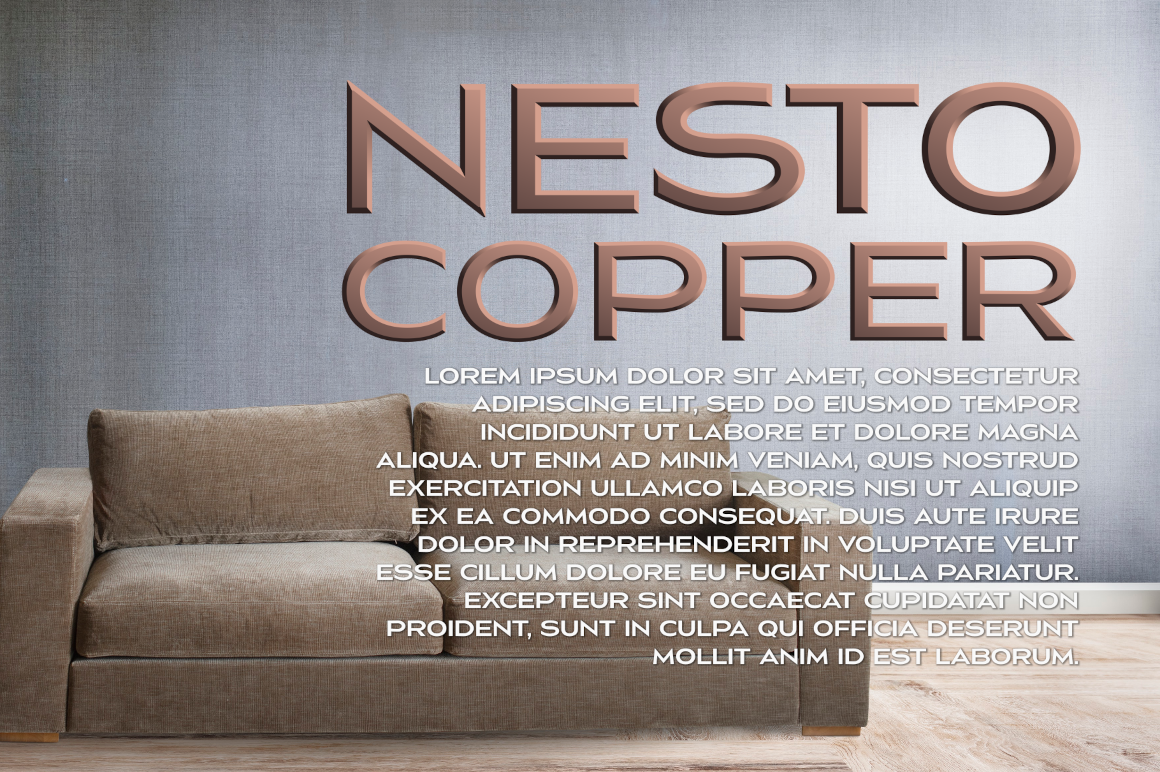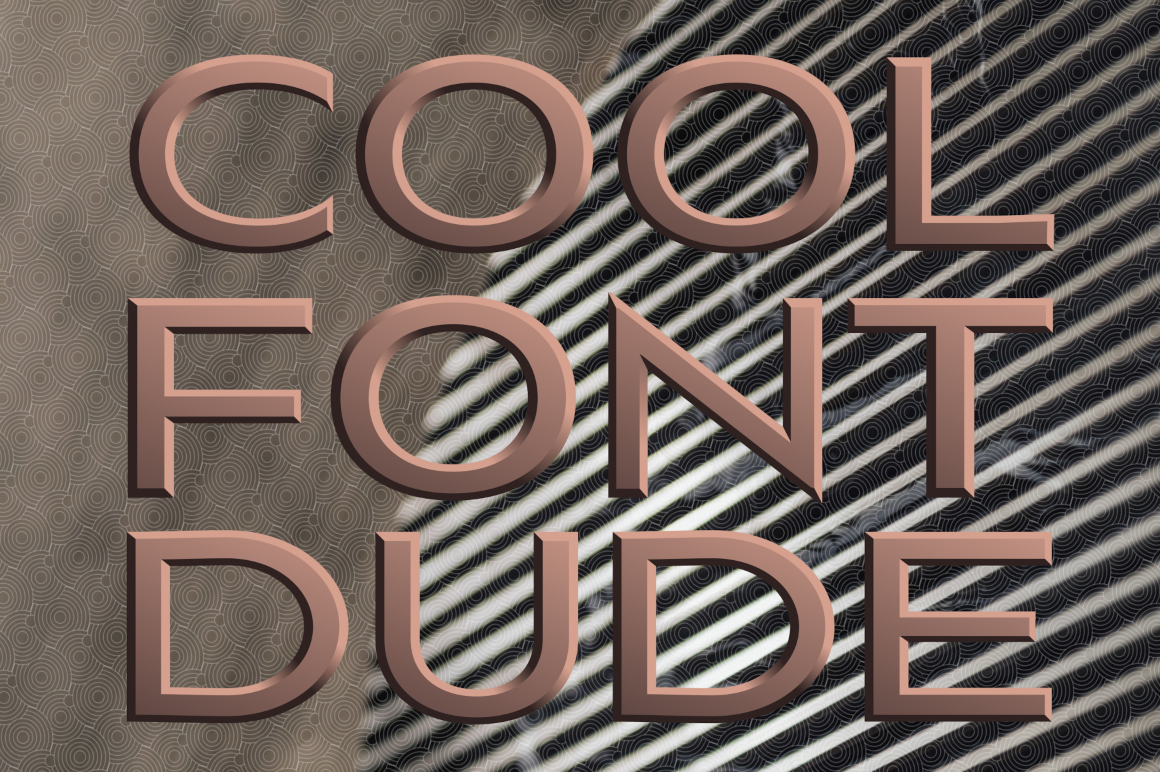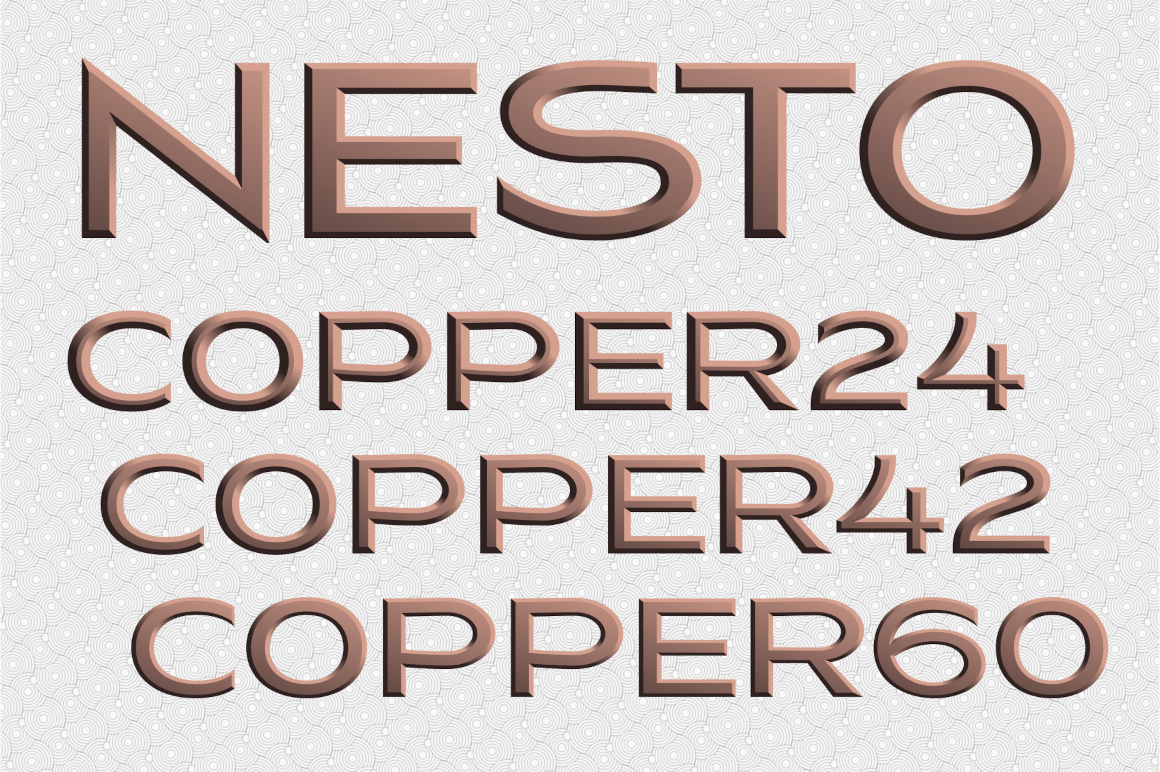
Nesto Copper 42 Font
Nesto Copper 42 is a unique color font featuring full vector glyphs and gradients. Designed with attention to detail, this font includes automatic contextual alternates that adjust for whitespace area differences, ensuring your designs look polished and professional.
In summary, Nesto Copper 42 is a versatile color font that brings your designs to life with its full vector glyphs and gradients. With built-in contextual alternates, this font automatically adjusts to ensure optimal appearance in any design. Ensure you have the required software to unlock the full potential of Nesto Copper 42. Purchase the full font family today and elevate your creative projects.